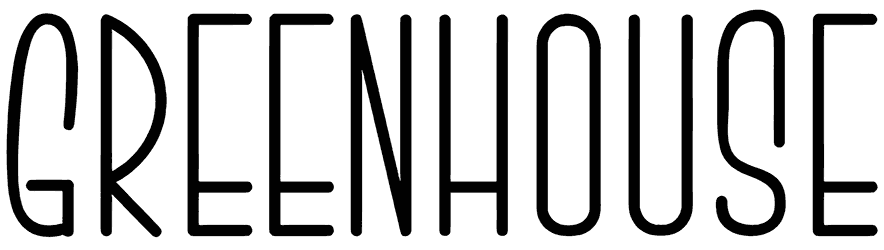
Greenhouse Font
Minimal lettering could always act as a potential selection for any design with any theme, and now, you are looking at one of them. This modest farmhouse font has soft, thin, and tall characters with a condensed form. As a farmhouse font, Greenhouse font can be a ravishing selection for a park sign, Instagram post cover, or other creative designs.
This font is a minimal and neat sans serif font. It can easily be matched to an incredibly large set of projects, so add it to your creative ideas and notice how it makes them stand out!